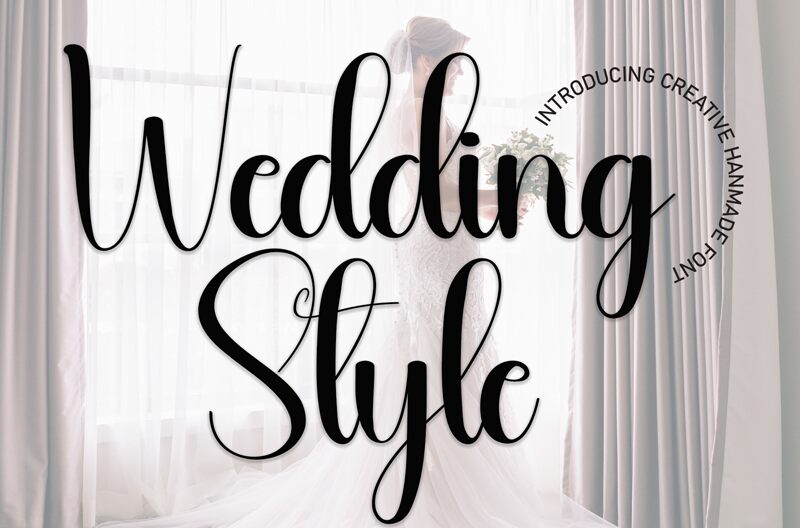
Wedding Style
Oozing with charm and personality, the "Wedding Style" font by Andi Moz is a captivating calligraphic delight. Blending graceful curves and delicate flourishes, this handwritten display font exudes a sweet, friendly vibe that instantly captures the heart. Its organic, expressive strokes evoke a sense of warmth and genuine connection, making it a natural fit for projects that seek to convey a heartfelt, personal touch.
This versatile font lends itself beautifully to a variety of design applications, from elegant wedding invitations and whimsical greeting cards to charming event signage and captivating social media graphics. Its playful, yet refined aesthetic effortlessly elevates any project, infusing it with a touch of romantic sophistication that is sure to leave a lasting impression.